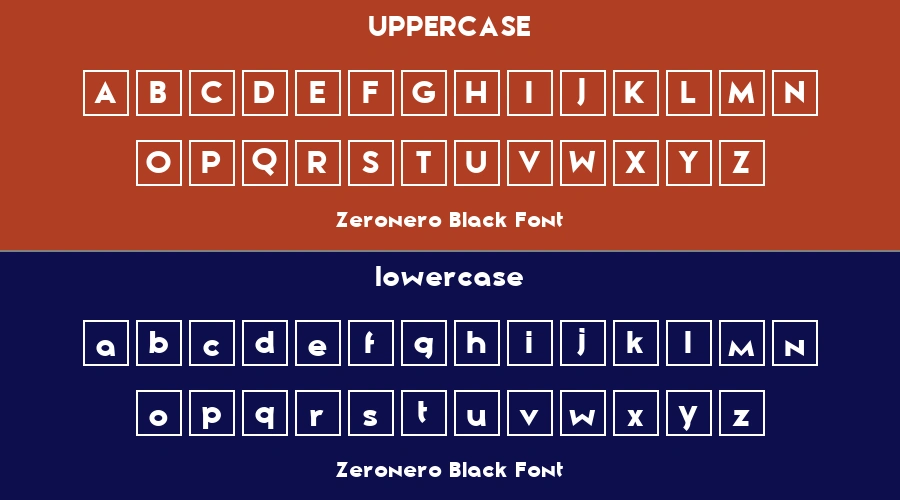
About Zeronero Black Font
Zeronero Black Font embodies typographic excellence through its masterful combination of elegant proportions and signature style. Created for magazine covers, this typeface delivers exceptional functionality and manufacturing quality across all applications. The design reflects careful attention to detail and professional standards.
Advanced capabilities include distinctive structural clarity and versatile historical accuracy, giving designers creative control. When used in headlines, Zeronero Black Font exhibits remarkable OCR compatibility. The harmonious balance between terminal angle and cultural relevance sets this typeface apart.